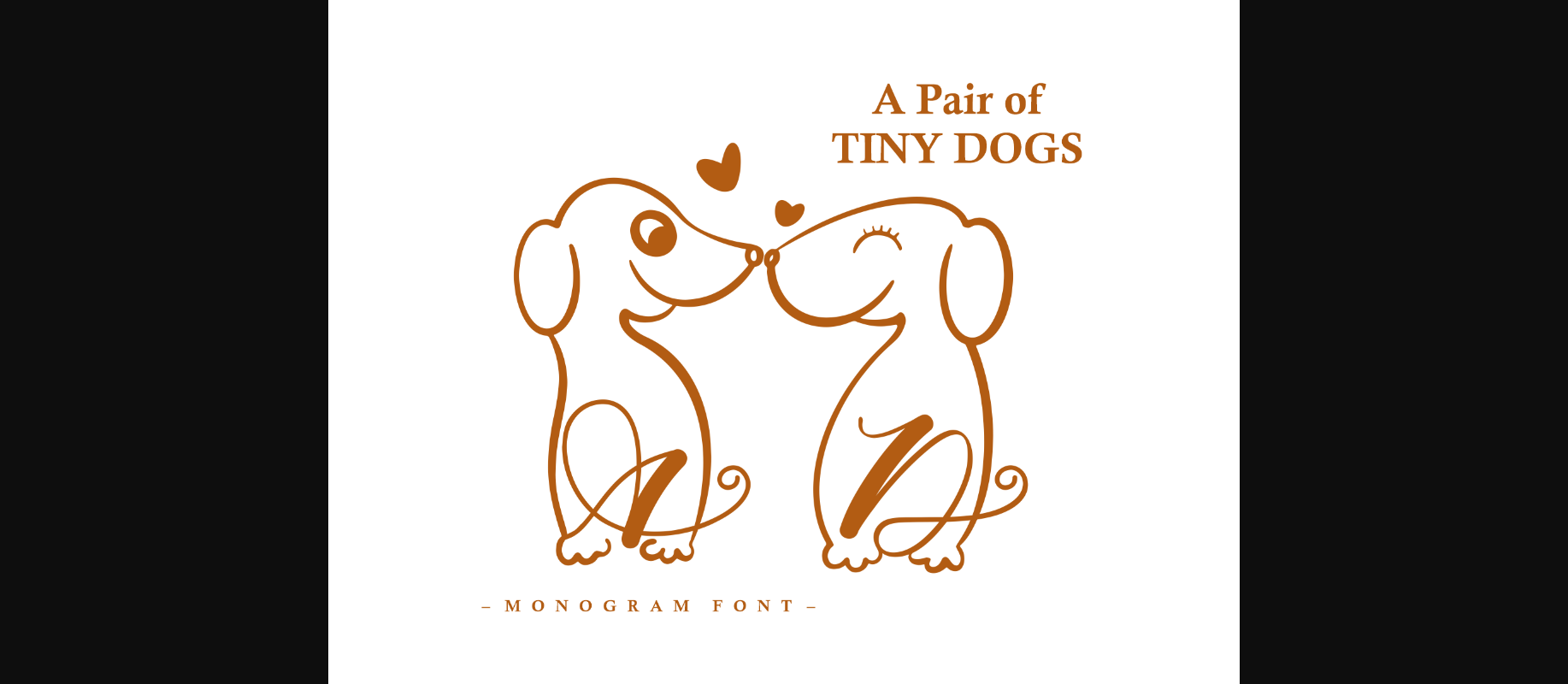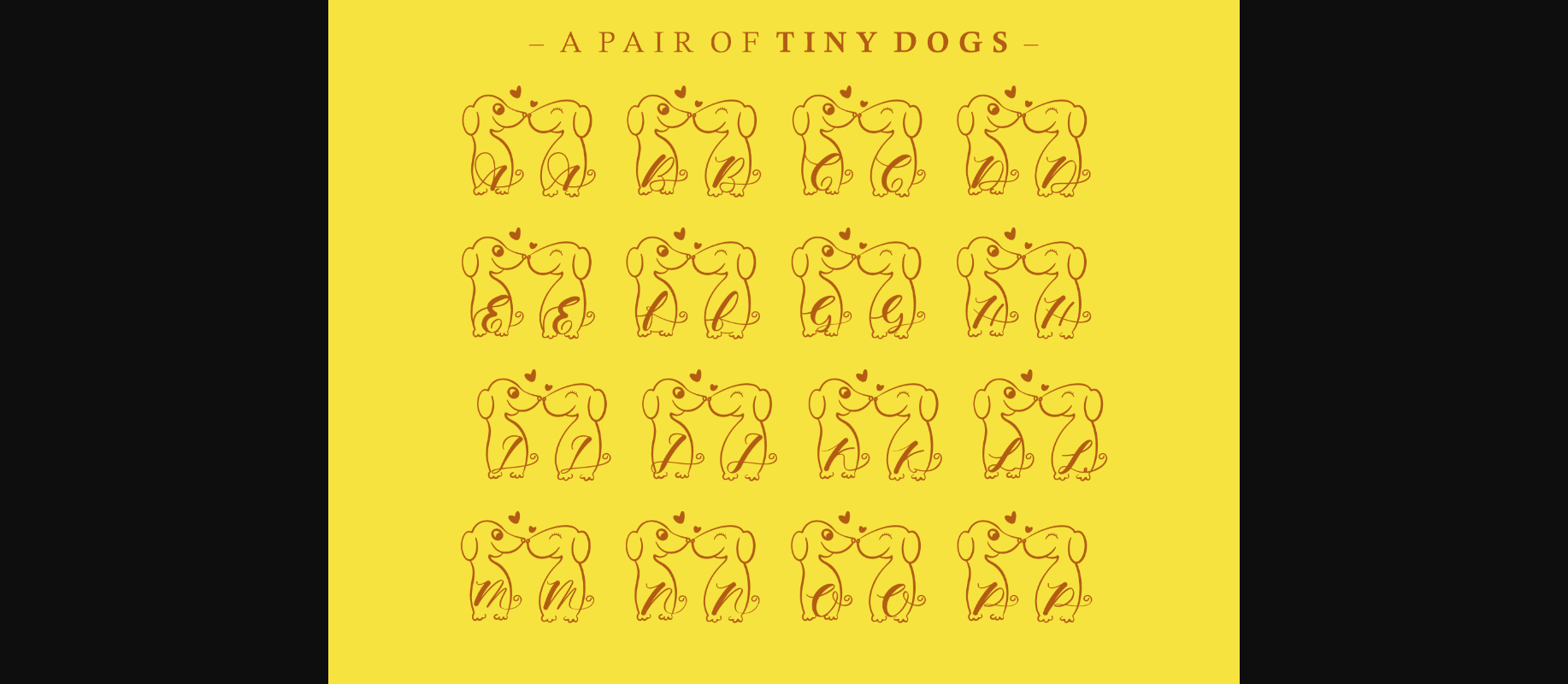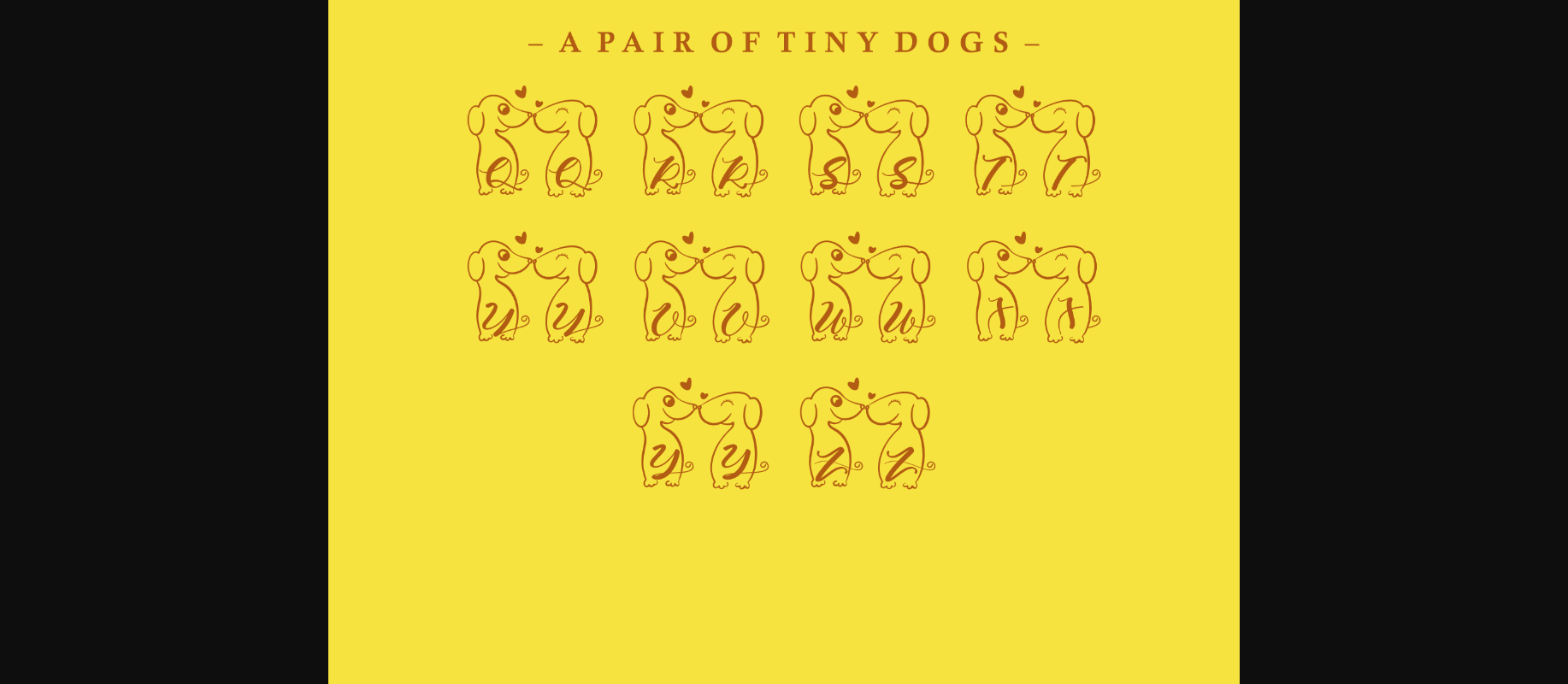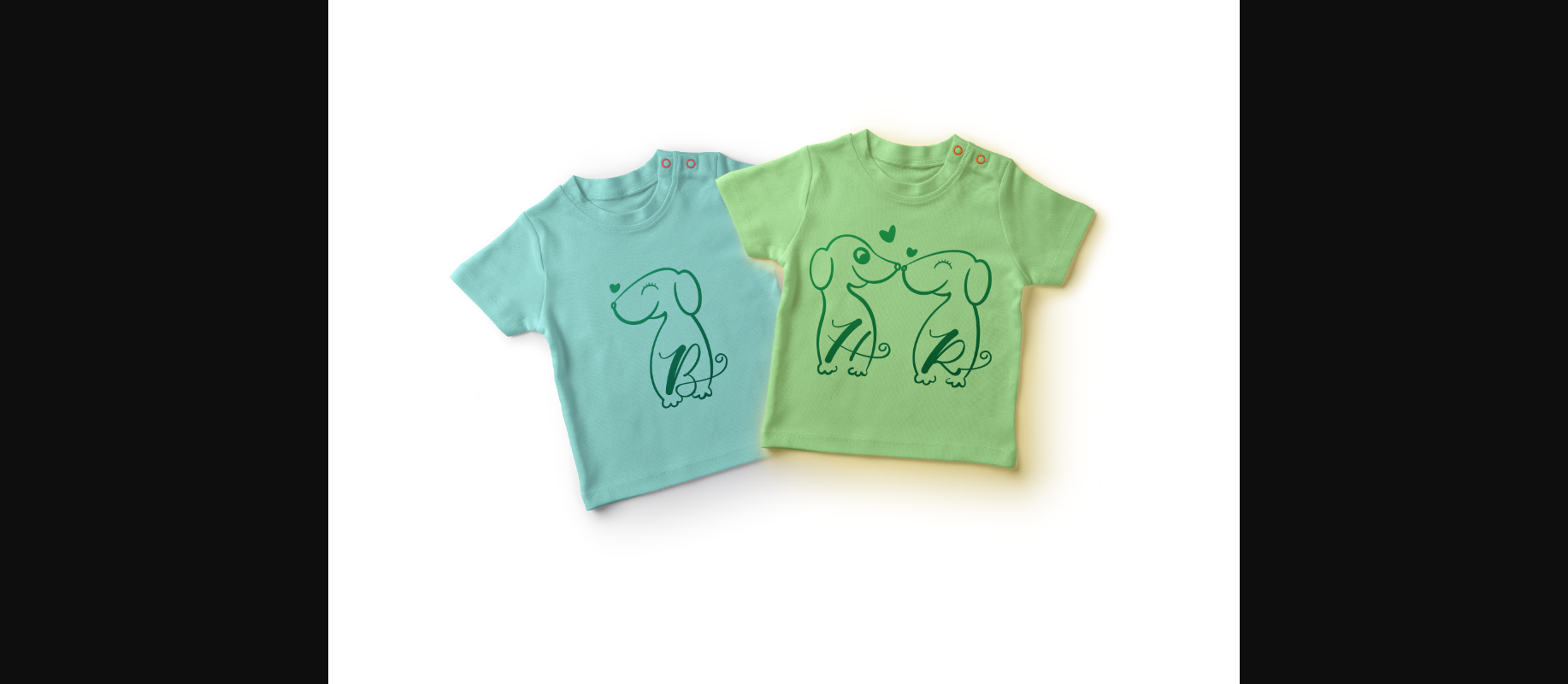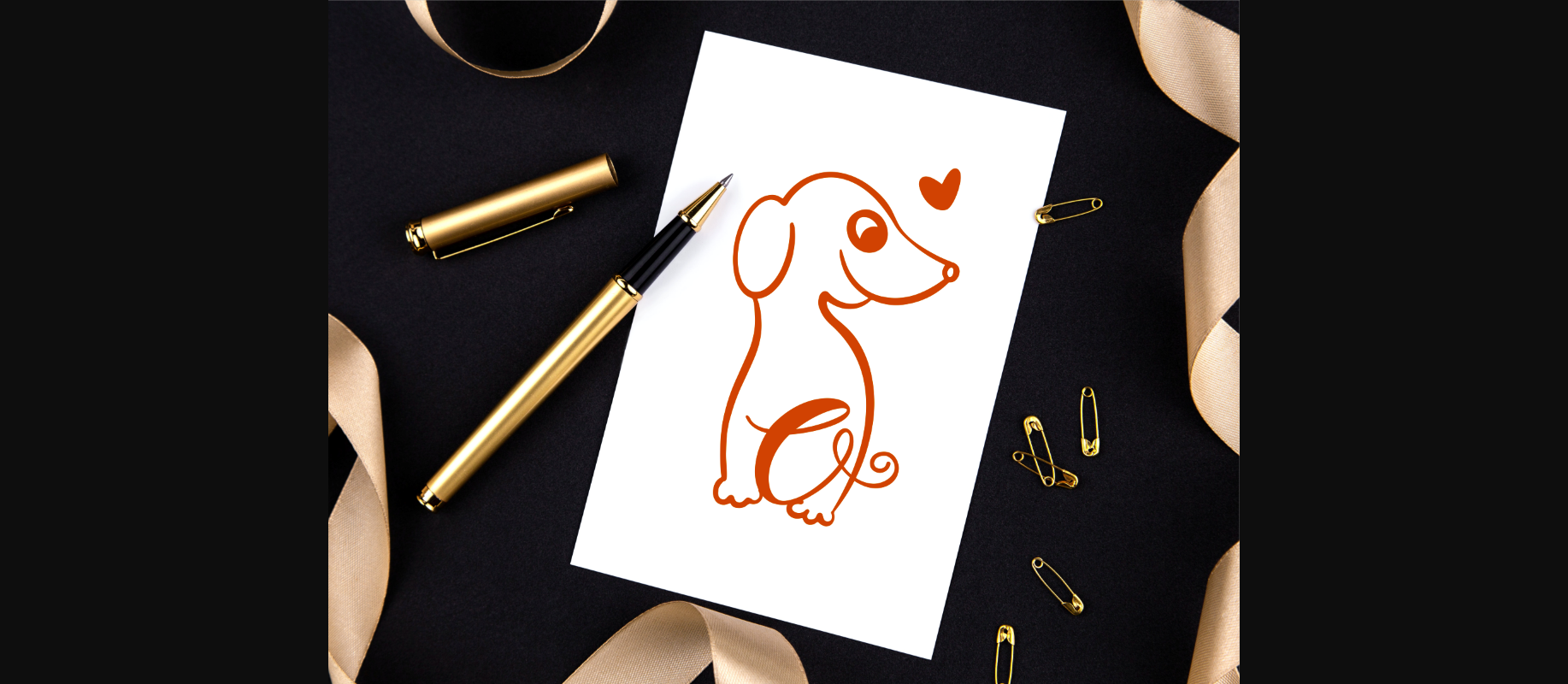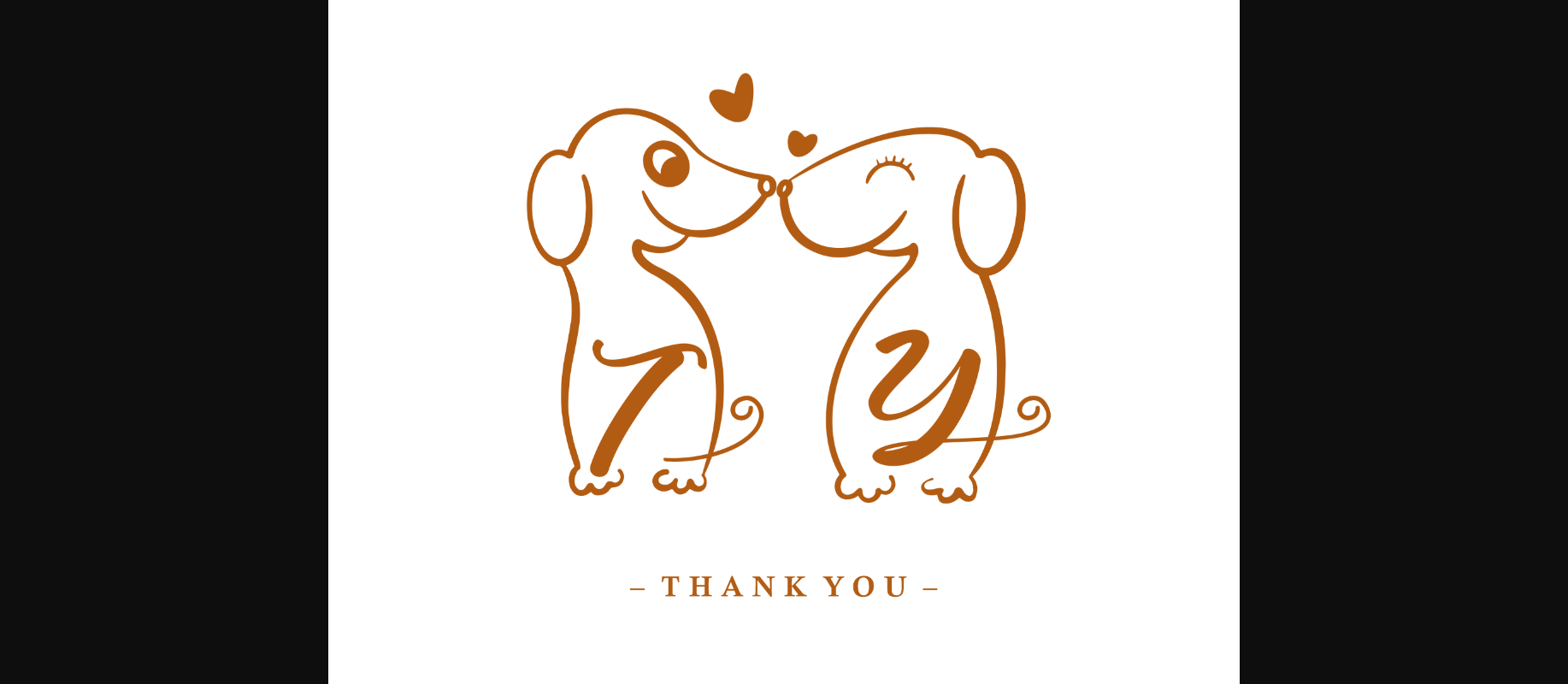
A Pair of Tiny Dogs Font
About A Pair of Tiny Dogs Font
A Pair of Tiny Dogs is probably the cutest decorative font you will ever come across. Add this lovely font to your library and employ it to school or children designs, pet decorations and so much more. The only limit is your imagination!